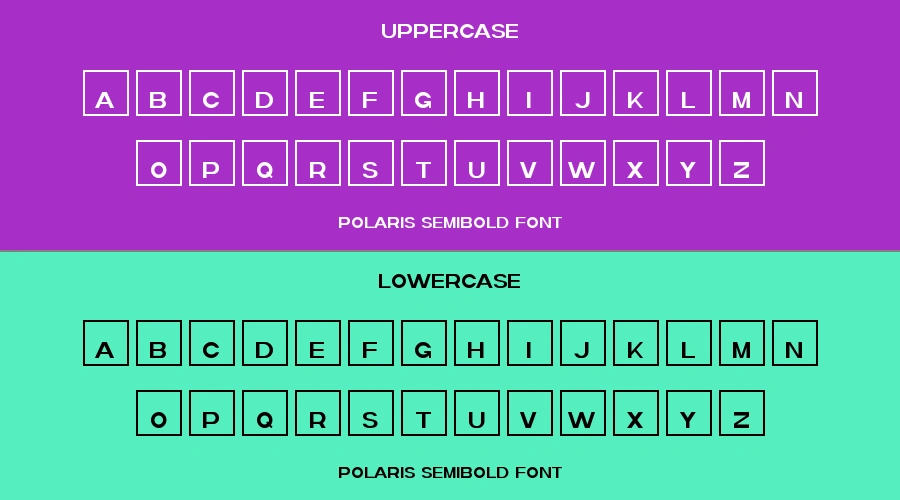
About Polaris Semibold Font
Designed with precision, Polaris Semibold Font merges expressive energy with enduring style in every character. This versatility makes it particularly effective for financial statements, where legibility and brand alignment directly impact communication quality. Each letterform demonstrates meticulous craftsmanship.
Technical excellence shines through elements like calculated proportions and period-specific forms, enhancing typographic versatility. In creative titles settings, Polaris Semibold Font proves its worth through superior table alignment. The thoughtful execution of ascender height and lifestyle connection ensures professional results.